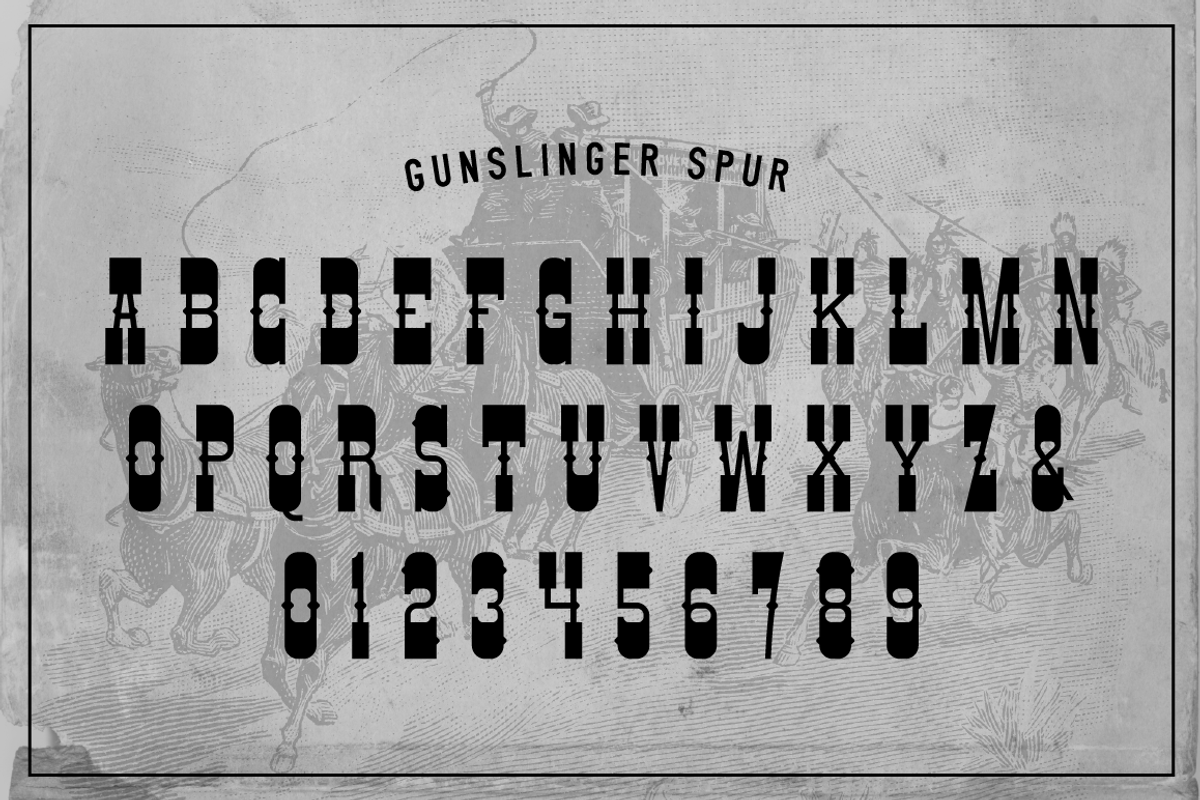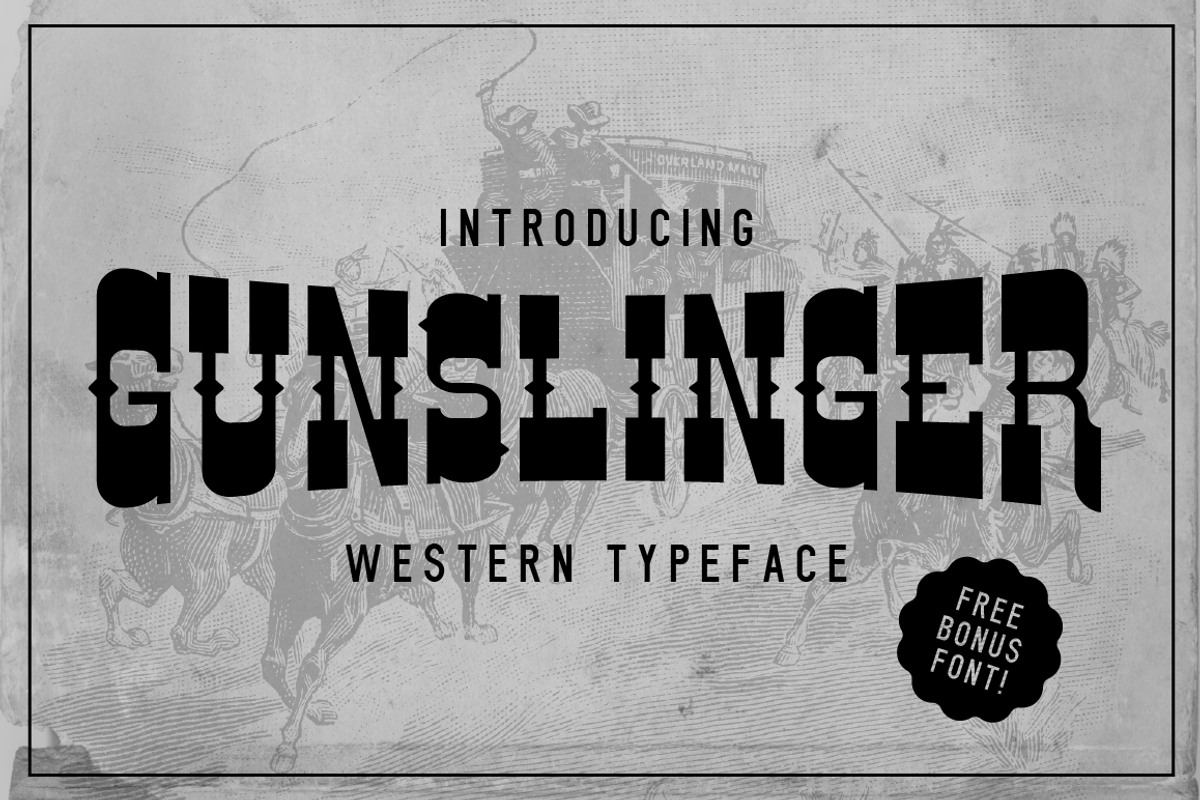
Gunslinger Western Typeface
A western inspired eye-catching bold slab serif that comes in both Regular and Spur styles. Gunslinger's reverse-contrast style, invented in the early nineteenth century for attention-grabbing novelty display designs, makes it perfect for headlines, posters, and logos.
All-Caps Character Sets A-Z
Accents (Multilingual characters) for Gunslinger Regular & Spur
BONUS FONT:Gunslinger Sans
Included free, Gunslinger Sans is a vintage-inspired Condensed Sans Serif font specially-designed to pair perfectly with Gunslinger. Easily combine Gunslinger Regular, Spur, and Sans to create cohesive designs that look great together.